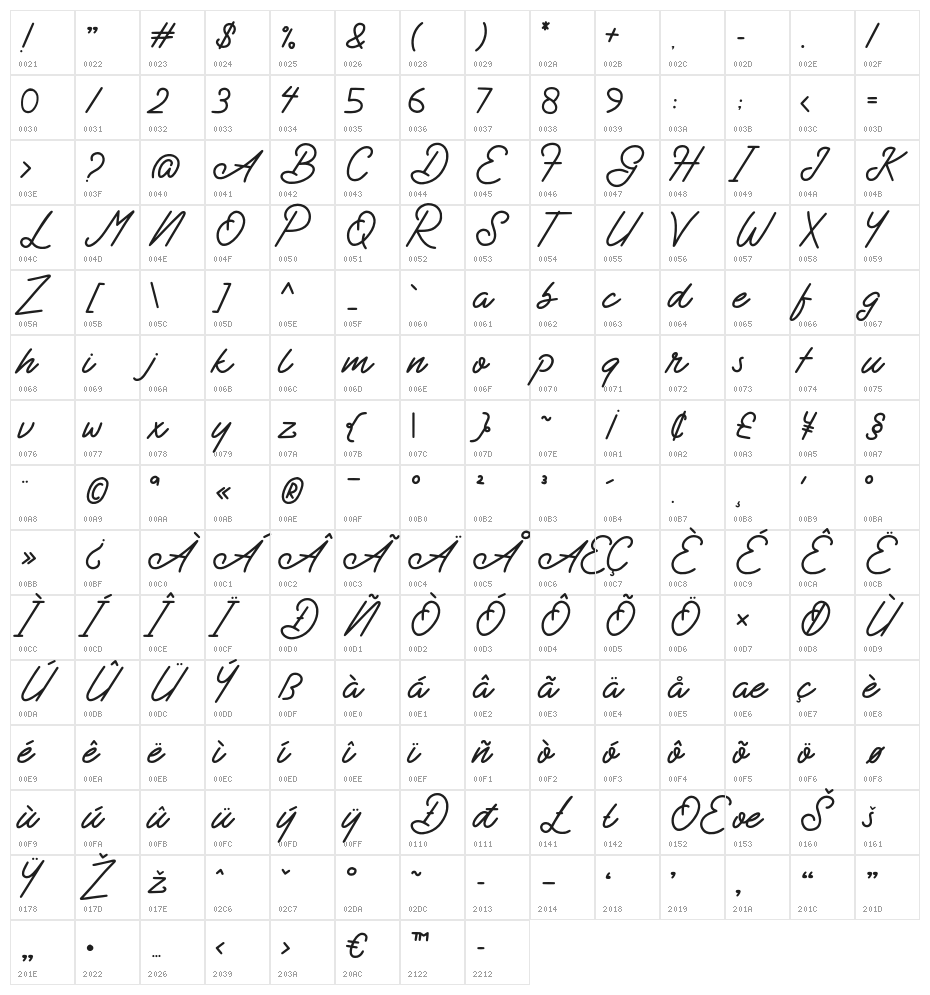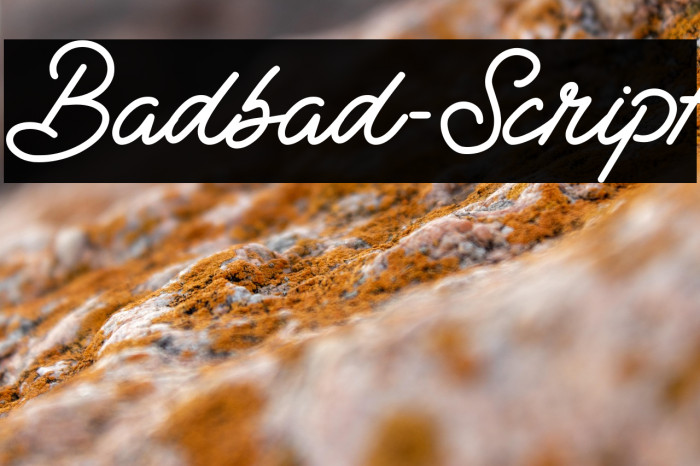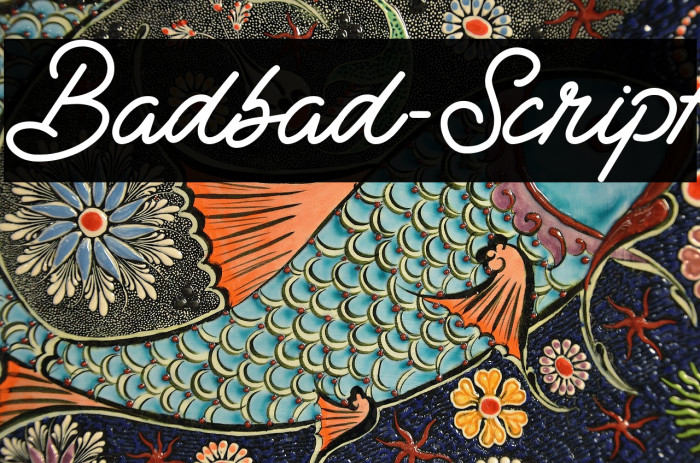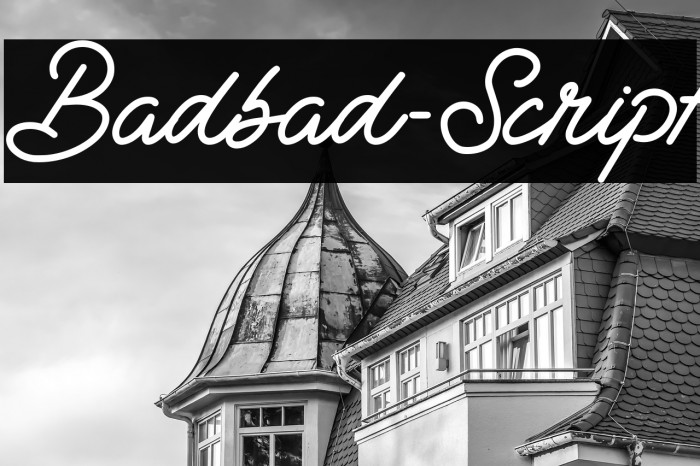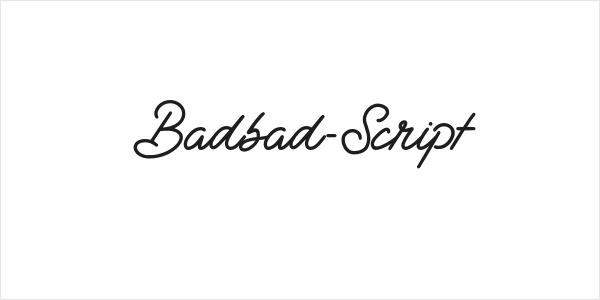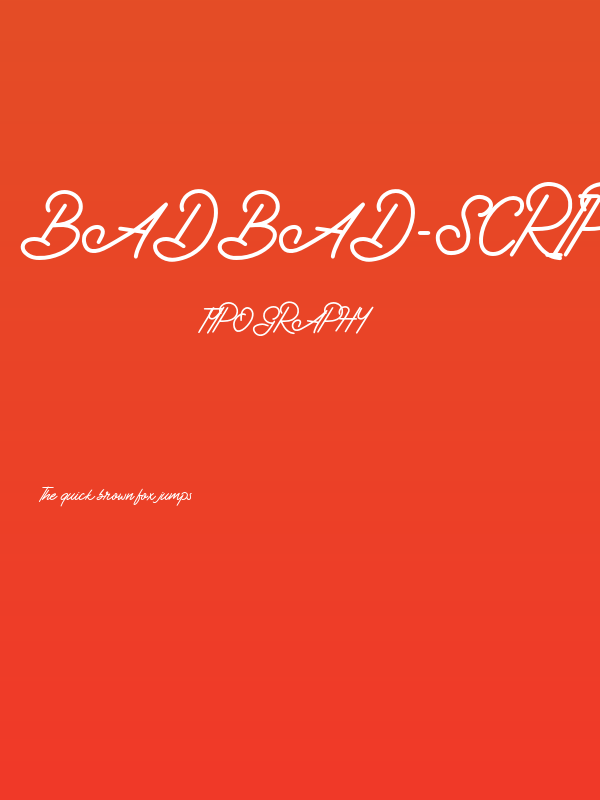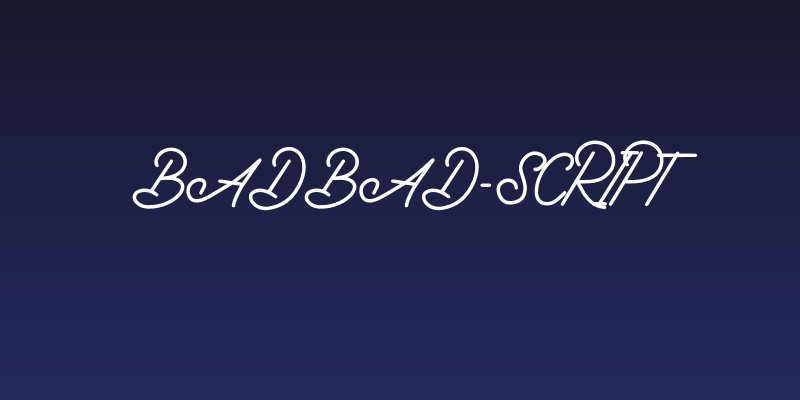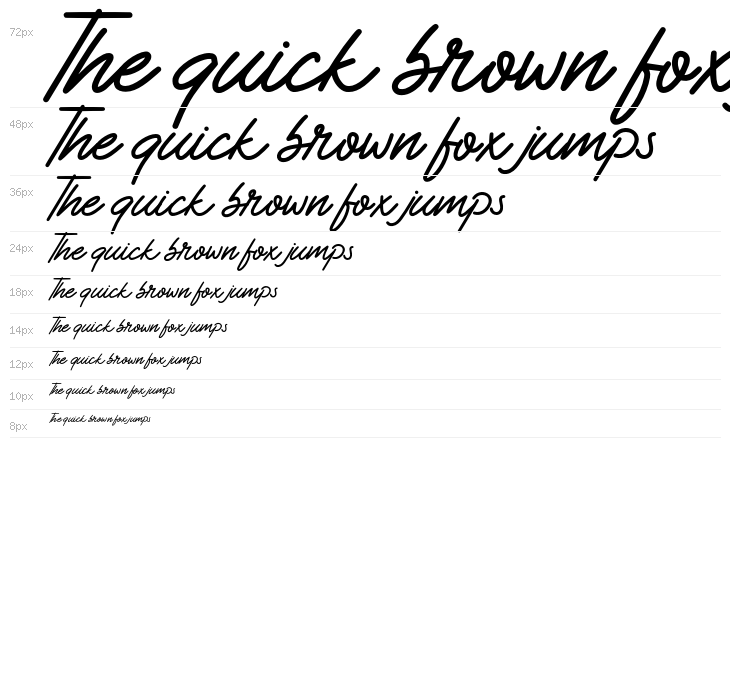
Badbad-Script Font
Badbad-Script Description
This font features a flowing, cursive style that mimics elegant handwriting. The uppercase letters are tall and graceful, with smooth curves and loops that give them a sophisticated appearance. The lowercase letters maintain a consistent slant, enhancing the script's fluidity and charm. Numbers and special characters are designed to match the overall aesthetic, making them suitable for decorative purposes. The font's playful yet refined nature makes it ideal for projects that require a personal touch, such as invitations, greeting cards, and branding materials.
| Overall Style | Elegant, Handwritten |
| Use Case | Logos, Invitations, Decorative text |
| Proposed Projects | Ideal for wedding invitations, greeting cards, personal branding, and decorative signage. |